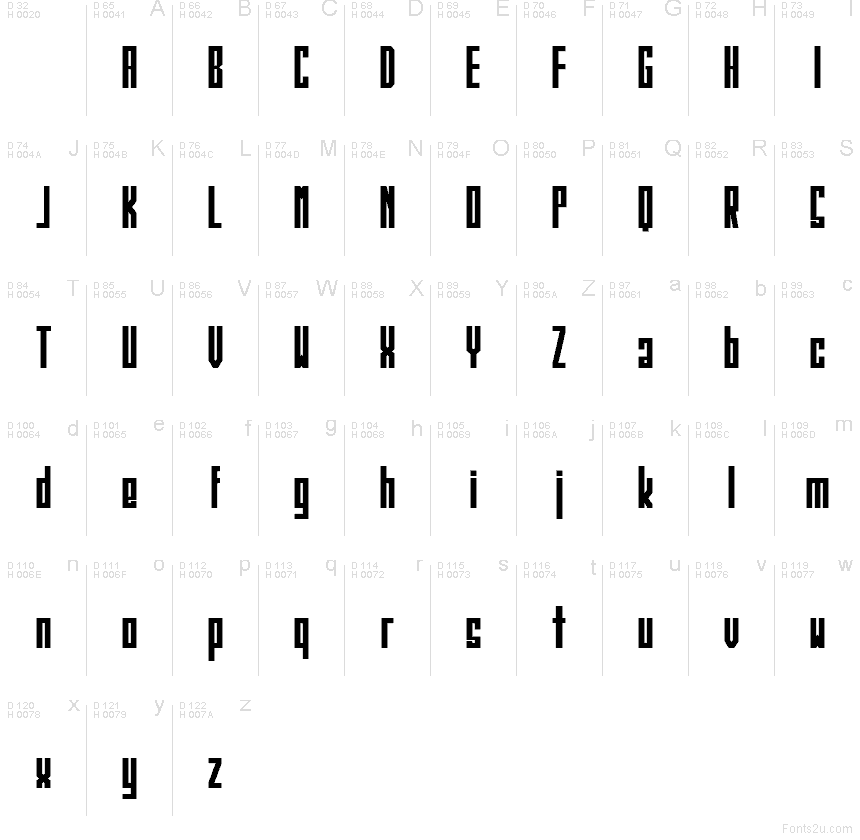
Vanishing Extravagant font by Vladimir Nikolic is a free decorative techno sans font, a typeface with tall, brick-solid letters and crisp right angles that feel carved from a single slab. The narrow proportions and tight rhythm give it a futuristic, Art Deco bite-bold without getting messy-even when you stack words into compact blocks.
Using Vanishing Extravagant, try it on game titles, sci‑fi posters, tech event flyers, album covers, esports branding, packaging badges, and punchy YouTube thumbnails. This free font likes breathing room, so bump the tracking slightly and pair it with a plain humanist sans for body text to keep the vibe sharp, not noisy.